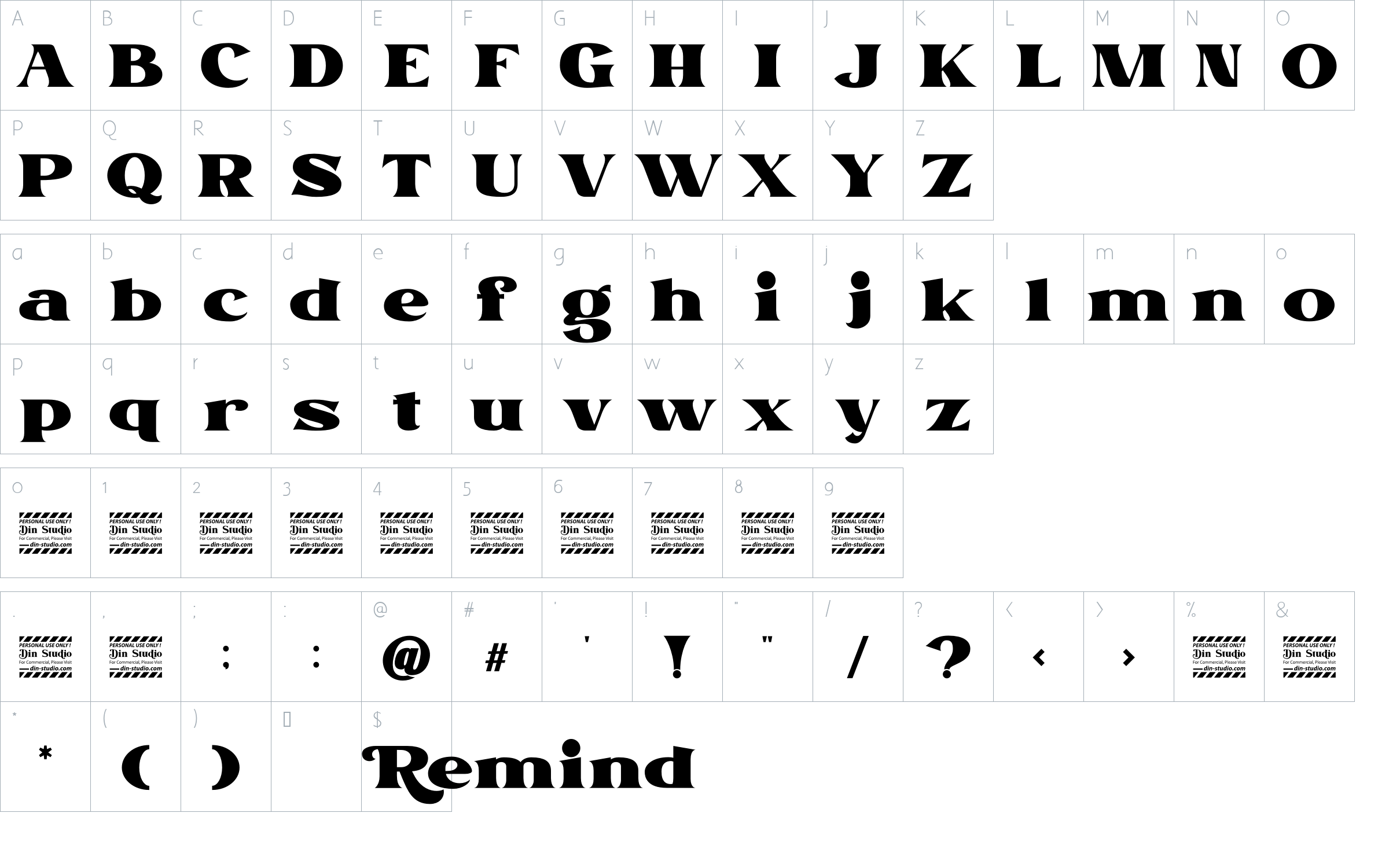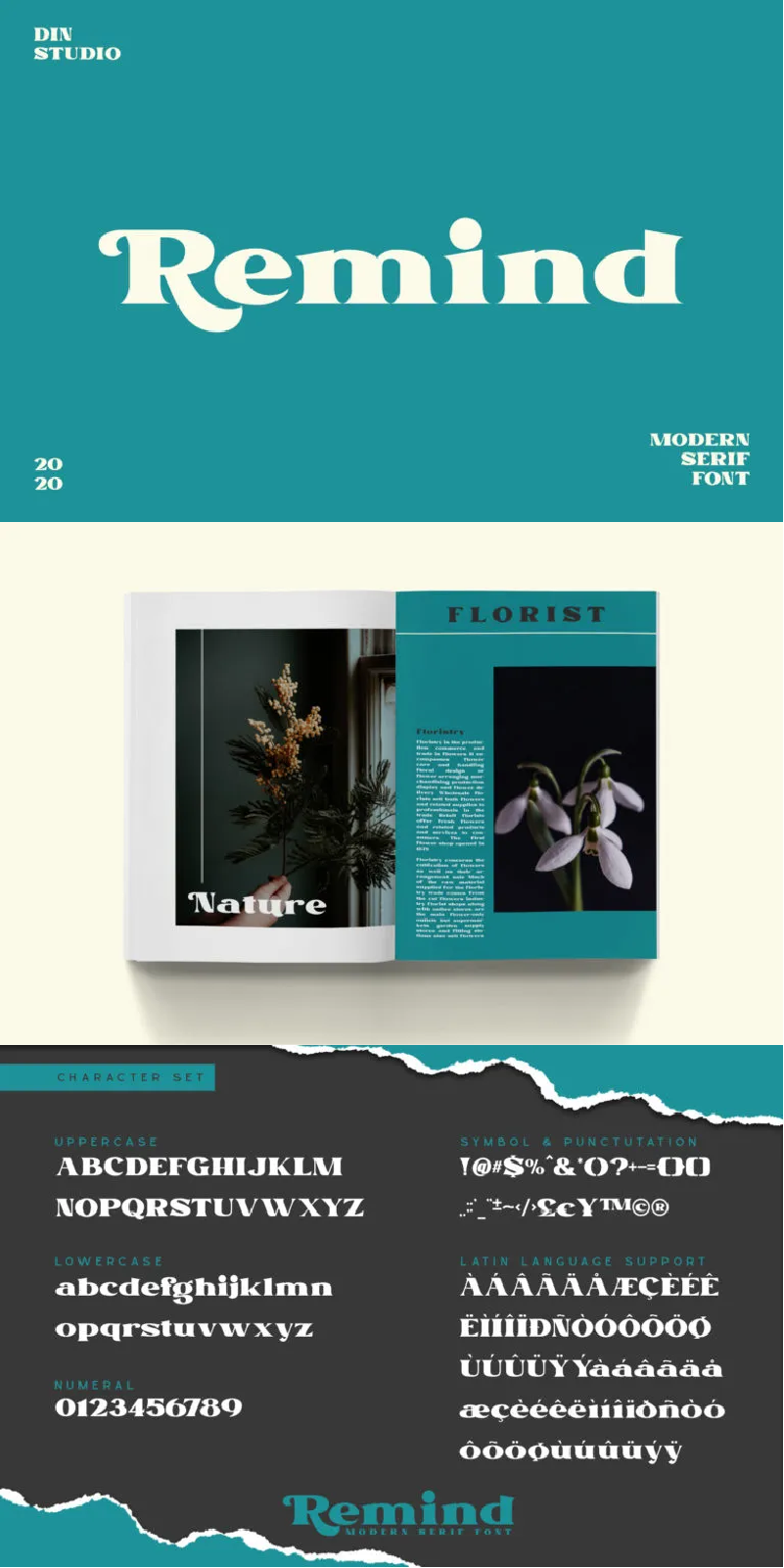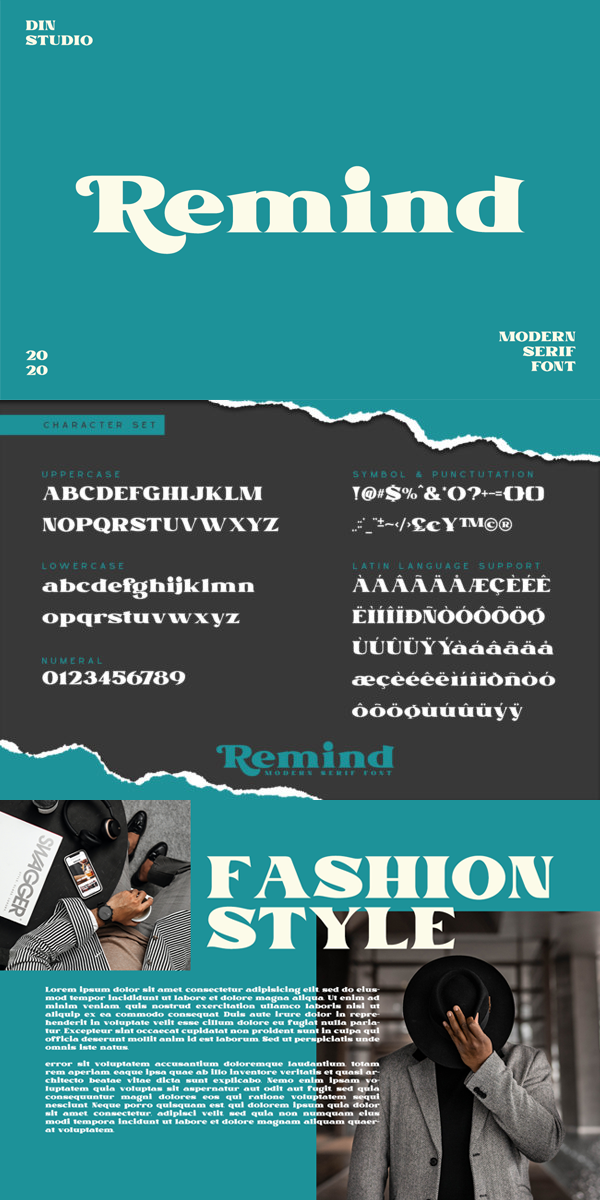
Remind Font
About Remind
This font is suitable for any projects, like brandings, printed templates, logos, etc. See the previews above to get some inspiration on how you can use them. Enjoy the font!